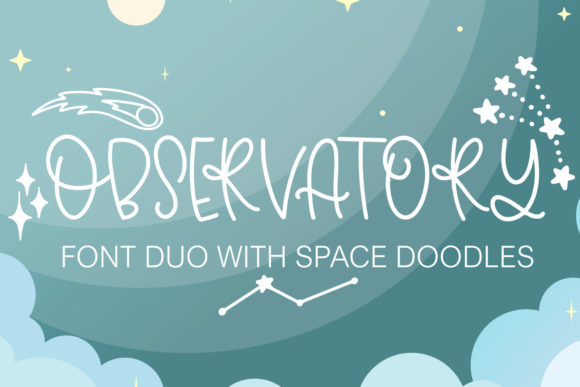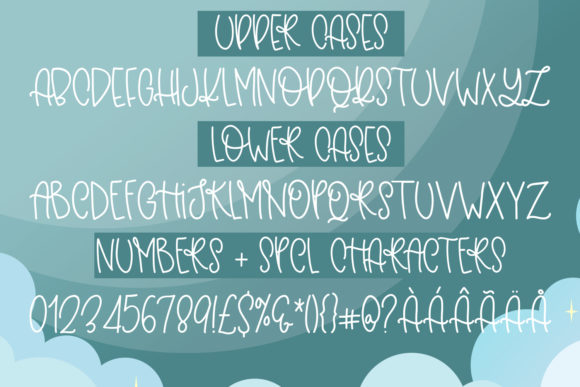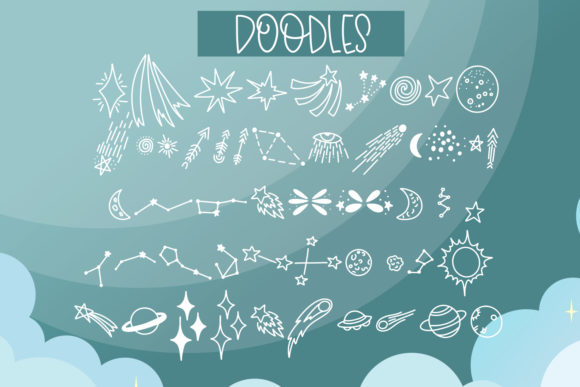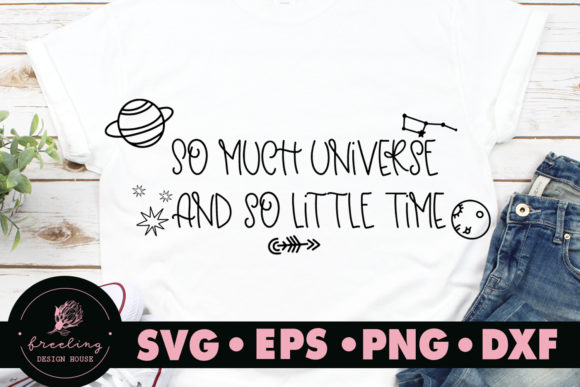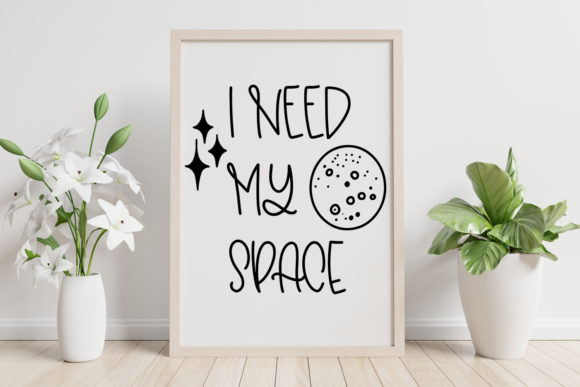
Observatory Font
About Observatory Font
Observatory is a cute and quirky handwritten font. It embodies fun and authenticity and is the perfect choice for any school or kids project.